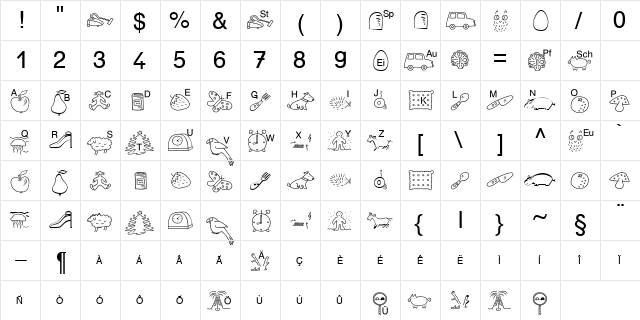
SP Anlaut4 Normal
Design Context for SP Anlaut4 Typeface
SP Anlaut4 is a composed and adaptable typeface that performs quietly and consistently across a wide range of design contexts.